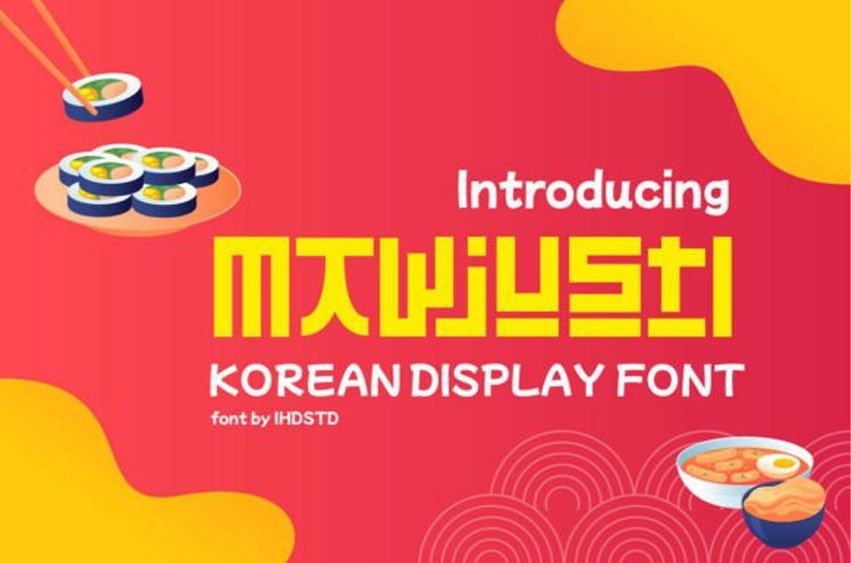
Mawjusti Font Korean Style Display Font is a typeface designed to evoke the aesthetic of modern Korean typography.
Mawjusti is a playful Korean-style display font designed to bring a cultural flair and geometric simplicity to your work.
Inspired by Hangul and modern K-pop aesthetics, this font blends minimalist shapes with vibrant energy.
Ideal for food packaging, restaurant branding, posters, or cultural campaigns, Mawjusti radiates joy and freshness. It’s especially effective in promoting Asian-themed products and lively visual identities. Bright, bold, and fun—Mawjusti gives your design an instant flavor boost.